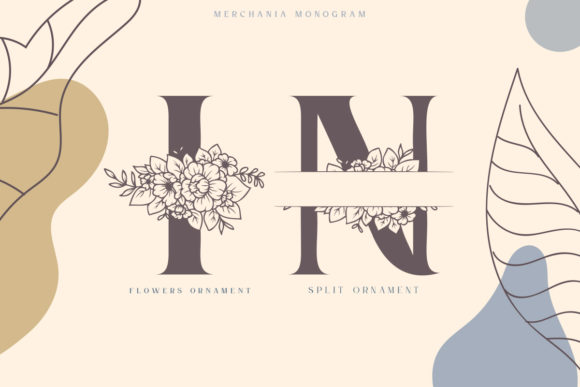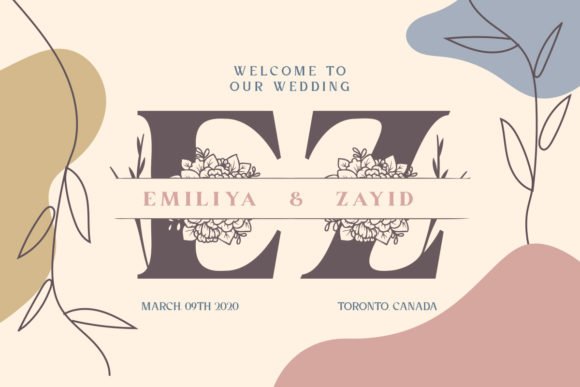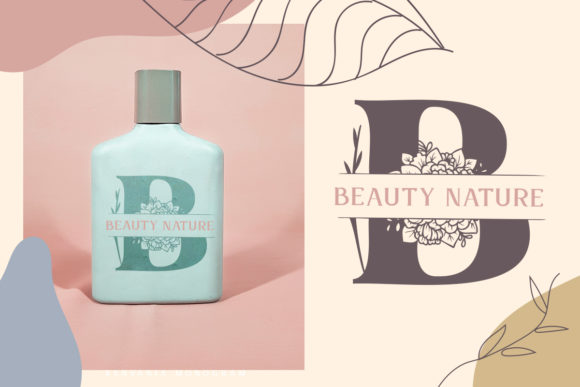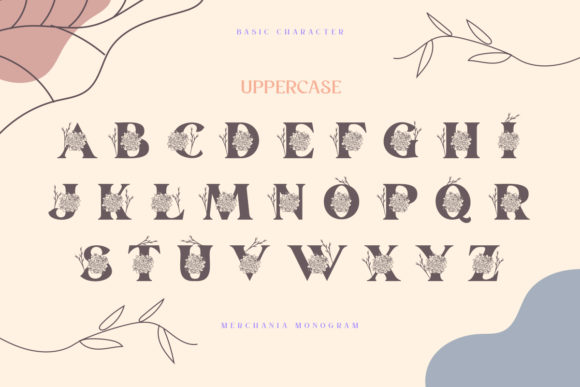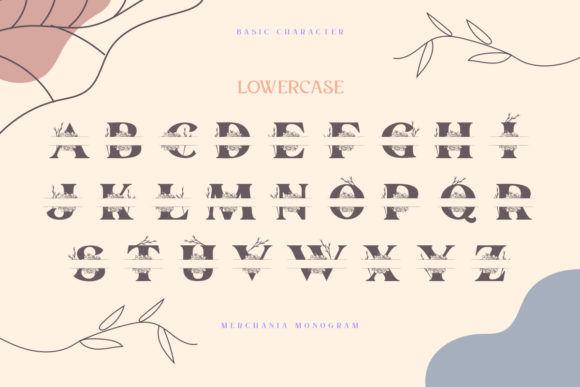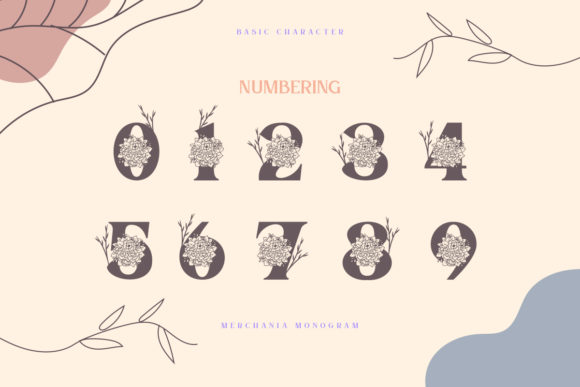
Introduction to Merchania Monogram Font
You know that moment when you’re working on a creative project, and the perfect font just slips your mind? The one that will elevate your design from good to great? For many designers, finding that elusive font is a perpetual challenge. But what if I told you that you’ve just stumbled upon it? Welcome to the world of Merchania Monogram Font, a game-changing display font that’s about to take your designs to the next level.
As a designer, you know the value of having access to high-quality design resources. A good font can make all the difference in bringing your vision to life. And that’s exactly what Merchania Monogram Font offers – a unique, masterfully designed font that’s perfect for any creative project. Whether you’re working on a free download or a paid project, this font is sure to impress.
With its transparent background and versatile design, Merchania Monogram Font is a valuable addition to any designer’s toolkit. It’s the perfect way to add a touch of elegance and sophistication to your designs, and with a free download available, you can get started right away.
Key Features of Merchania Monogram Font
- Unique, high-quality design ideal for creative projects and personal branding
- Comes with a transparent background, making it perfect for use on various backgrounds and designs
- Includes a range of stylish monogram designs, suitable for various creative projects and applications
- Perfect for use in digital and print designs, including logos, business cards, and other marketing materials
Honest Review: Merchania Monogram Font
I recently stumbled upon the Merchania Monogram Font and I must say, it’s a great addition to any design resource library. I downloaded it for free, which was a huge plus, and was immediately impressed by its high quality.
- ✨ Comes with a transparent background, making it easy to customize
- ✨ Perfect for designers looking for a unique monogram font
One thing to note is that the font might be a bit too bold for some designs, but overall, it’s a great choice for anyone looking to add a touch of elegance to their work.
- ⚠️ Might be too bold for delicate or minimalist designs
- ⚠️ Limited font styles available (though still a great addition to any library)
Overall, I’m impressed with the Merchania Monogram Font and would definitely recommend it to anyone looking for a high-quality design resource. It’s a great addition to any creative project and is sure to make your designs stand out.
Tips for Getting the Most Out of Merchania Monogram Font
To get the most out of the Merchania Monogram Font, experiment with different font sizes, colors, and arrangements. You can also pair it with other fonts to create a unique and visually appealing design.
The Merchania Monogram Font is perfect for various creative projects, including:
- Business branding and marketing materials
- Event invitations and stationery
- Digital products and online courses
- Logos and icon designs
Alternatives to Merchania Monogram Font
Yes, the Merchania Monogram Font is a versatile design resource that can be used for a wide range of creative projects, including branding, packaging, and advertising. Its unique monogram design makes it perfect for creating eye-catching and memorable brand identities.